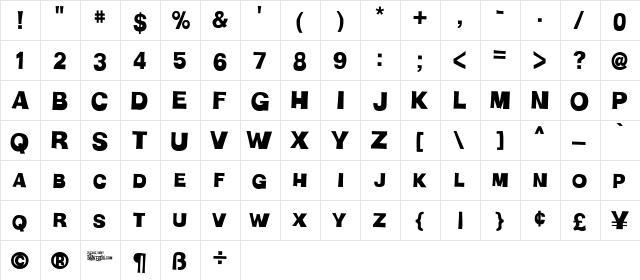
H-Man Regular
Design Context for H-Man Typeface
H-Man takes a measured approach to typography — its balanced proportions and neutral character make it a reliable workhorse for both digital and print work.